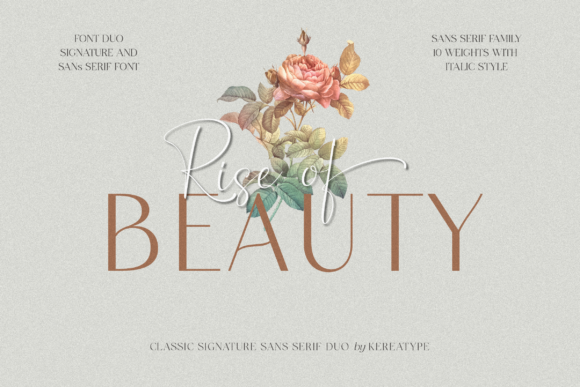
Explore the possibilities with Rise of Beauty Duo Font, a font that offers both beauty and functionality. Introducing Rise of Beauty Font Duo, a classy, contemporary pair of script and sans serif fonts. With a stylish expressive script companion, Rise of Beauty offers beautiful typographic harmony for a diversity of design projects, including logos & branding, wedding designs, social media posts, advertisements & product designs.
Rise of Beauty’s elegant script and modern sans serif pair best in branding projects requiring a touch of sophistication, particularly logos, short headlines, and social media graphics. It excels in wedding invitations and other projects emphasizing refined aesthetics. However, its script is less suitable for body text or extended reading. Avoid using it for UI elements or situations demanding high legibility in small sizes.
The script’s flowing forms are beautifully balanced by the clean lines of the sans serif, creating visual harmony. Pairing Rise of Beauty with a geometric sans serif like Bebas Neue adds a touch of boldness, while a classic serif like Garamond offers a more traditional counterpoint. For a softer feel, consider pairing with a rounded sans serif such as Lato.
The overall personality is sophisticated and romantic, but with a contemporary edge. It conveys a sense of quality and style, making it ideal for brands aiming for a premium, yet accessible image.